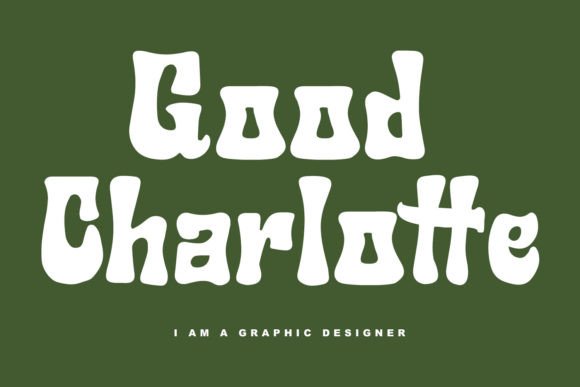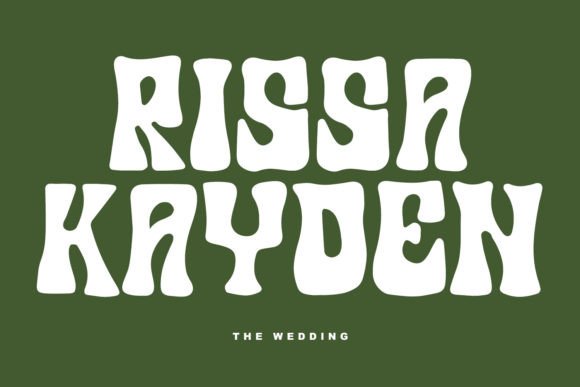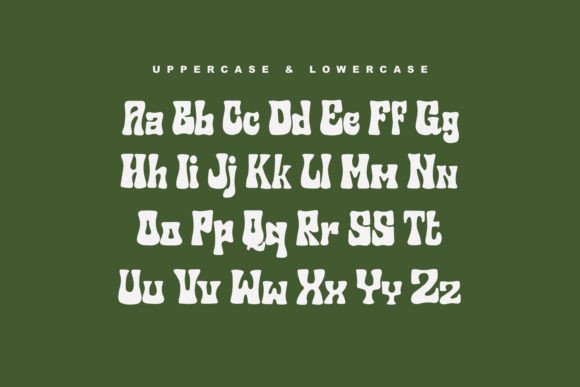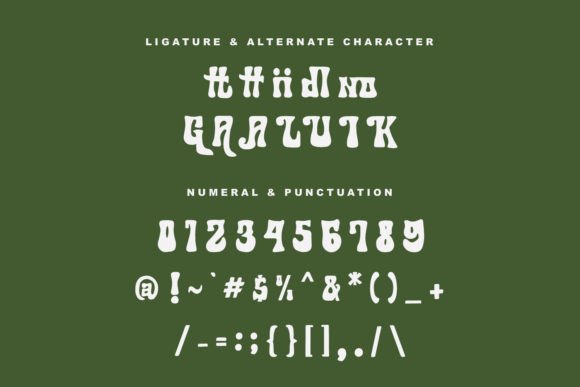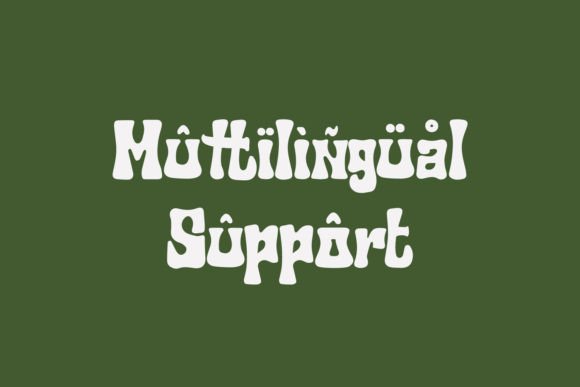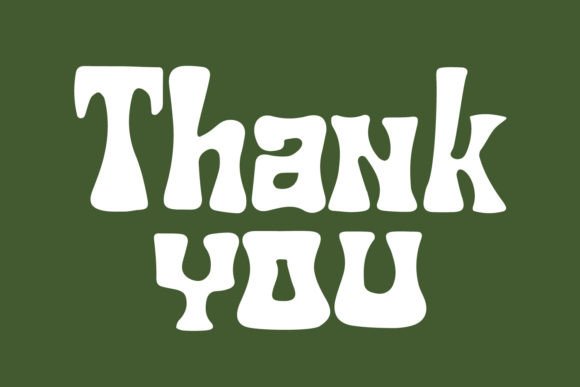
The Ultimate Font for Creatives: Kagelio Molekul Font
Have you ever been stuck on a design project, searching for that perfect font to bring your ideas to life? The blank page stares back, taunting you with its emptiness. Suddenly, a spark of inspiration hits, and you envision a unique, eye-catching display font that will set your design apart from the rest. This is where the Kagelio Molekul Font comes in – a fun, character-rich font designed to give your creative work an extra boost.
This versatile font is not just a pretty face; it also supports multilingualism in over 100 languages, making it an invaluable tool for designers working on global projects. Whether you’re a seasoned pro or just starting out, the Kagelio Molekul Font is sure to bring a fresh perspective to your designs, setting you apart from the crowd and taking your creative work to new heights.
Kagelio Molekul Font Key Features
- Font Size: 20,000+ glyphs, including Latin, Cyrillic, Greek, and Devanagari scripts
- Unique Characteristics: Kagelio Molekul Font features a unique blend of modern and organic design elements, with a focus on simplicity and legibility
- Font Style: Available in 4 styles: Regular, Bold, Italic, and Bold Italic
Kagelio Molekul Font Review
Overall, I’m quite impressed with the Kagelio Molekul Font. ✨ It has a unique, organic feel to it that makes it stand out from other sans-serif fonts. The designer has done a great job of capturing the essence of molecular structures in a visually appealing way.
- ✨ The font’s irregularities and imperfections make it feel hand-drawn, which can add a touch of personality to any design.
- ✨ The font’s bold and condensed versions are particularly well-designed, making it suitable for headlines and titles.
- ✨ The font’s character set is comprehensive, with a wide range of languages and symbols supported.
- ⚠️ The font may not be suitable for body text, as the irregularities and imperfections can make it difficult to read at small font sizes.
- ⚠️ The font’s unique design may not appeal to everyone, and some users may find it too unusual or distracting.
Overall, I’d recommend the Kagelio Molekul Font for designers looking to add a touch of personality to their designs. While it may not be suitable for every project, it’s a great choice for headlines, titles, and other display text where a unique, hand-drawn feel is desired.